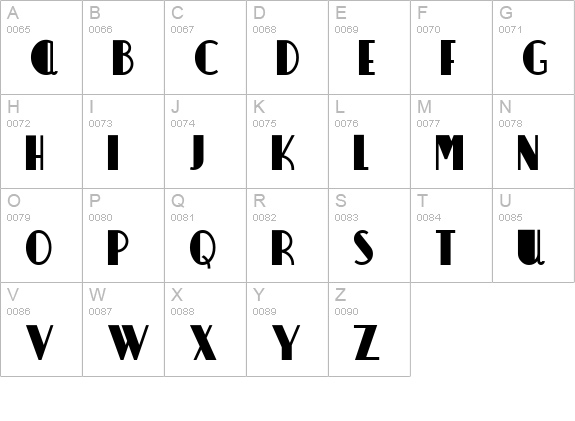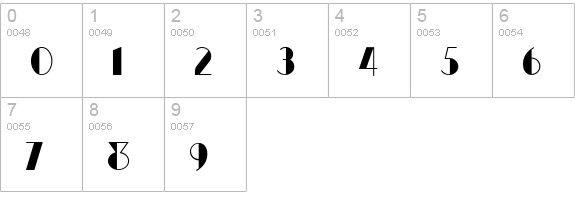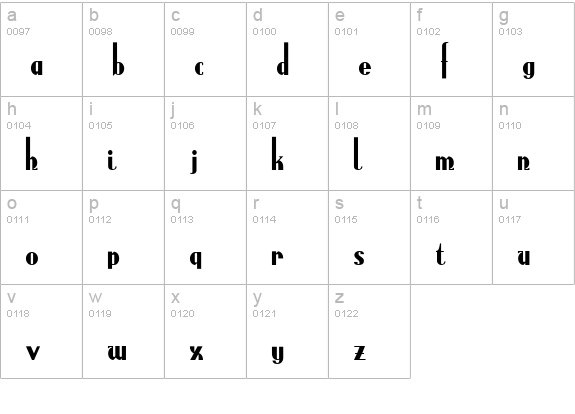
Anchor Steam NF Font Details
Anchor Steam NF font is a unique and eye-catching display typeface that exudes a sense of vintage charm and modern appeal. With its bold, condensed letterforms and distinctive serifs, this font is perfect for creating memorable headlines, logos, and branding materials. What sets Anchor Steam NF font apart is its versatility and timeless aesthetic, making it suitable for a wide range of design projects. Whether you're working on a poster, website, packaging, or any other creative endeavor, this font will add a touch of sophistication and character. Best of all, Anchor Steam NF font is completely free to download at FontsMarket.com. So, why wait? Add this striking typeface to your collection today and start creating stunning designs that stand out from the crowd.